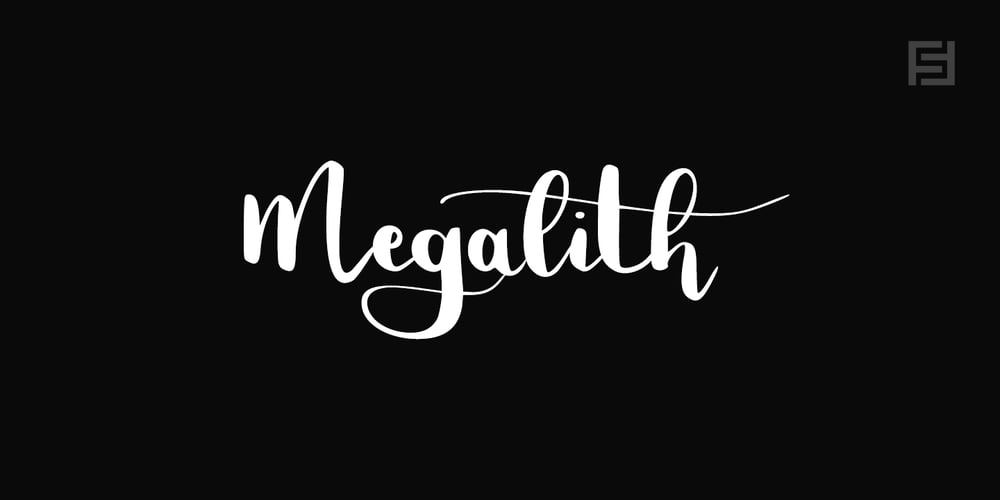
Megalith Script Font Family was designed by Lisha Joseph and published by Designova. Megalith Script contains 2 styles and family package options. Megalith is a classic handwritten script font for luxury/signature/branding/logotype/wedding invites/greeting cards / promotional graphics. Megalith is completely handmade with utmost dedication and passion for maintaining the highest aesthetic quality. The font comes with extended language support including Western European & Central European sets, with a total of 269 glyphs included.